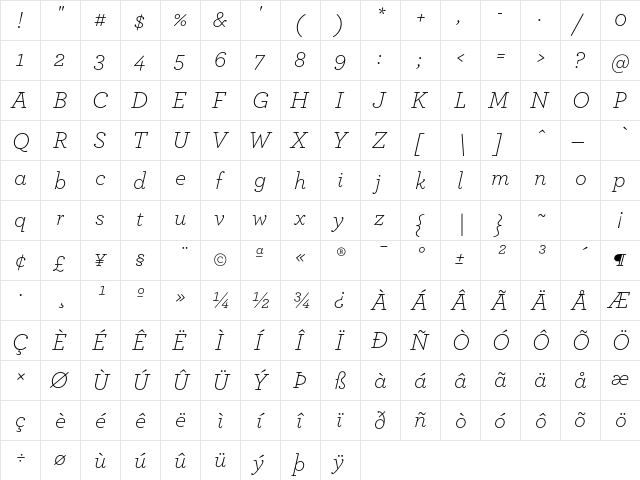
Archer Light Italic Font Preview
| Foundry | Hoefler & Frere-Jones |
| Designer | Hoefler & Frere-Jones |
Design Context for Archer Typeface
Archer offers clean, dependable letterforms without strong stylistic allegiance, making it a practical choice for designers who need flexibility. Its italic angle brings a sense of urgency and motion to the letterforms. The delicate stroke weight brings airiness and refinement to layouts.
Pro Tip: Try Archer for annotation and caption copy alongside an upright companion — the contrast in angle creates a dynamic but ordered typographic system.